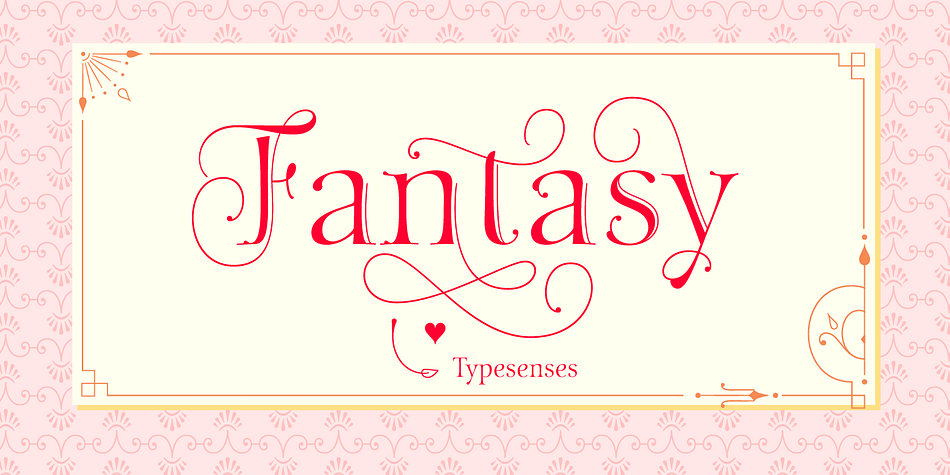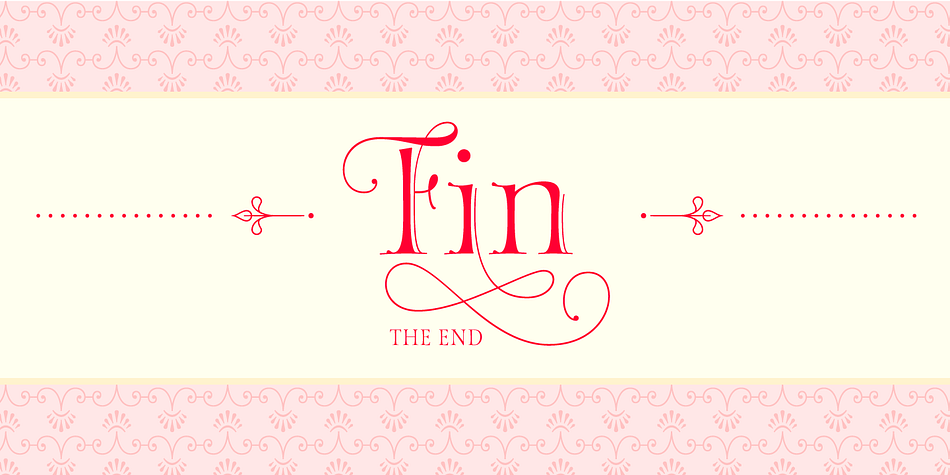
Fantasy
Fantasy is a dingbat and display serif font family. This typeface has five styles and was published by Typesenses.
As Typesenses believes that Letters need a touch of Magic, Sabrina Lopez presents her new creation, a burst of innovation: Fantasy.
This display font arises from the mix between Roman Style and Lombardic Decorations, with a little air of Medieval age.
Fantasy works perfectly in book covers, greeting cards, invitations, weddings, posters, magazines, fashion world, logos, packagings, letterpress,etc
Let your imagination fly and play with all its Alternates, Ornaments, Frames, Caps and the exclusive set of Decorated Lombardic Initials.
Fantasy is a a five font family.
Fantasy draws on a series of historical calligraphic traditions: Roman capitals, Lombardic initials, enlightenment era ornamentation and refinement. The user is invited to deploy their imagination playing with the alternates, ornaments and frames in different universes like publications and stationery.
Fantasy Pro is the fully-featured OpenType version with two styles of capitals and plenty of swash alternates and ornaments. Each of these varieties is available as a separate font in addition to Fantasy Std, a set of unadorned standard characters for smaller settings.
Give a touch of magic to your work!